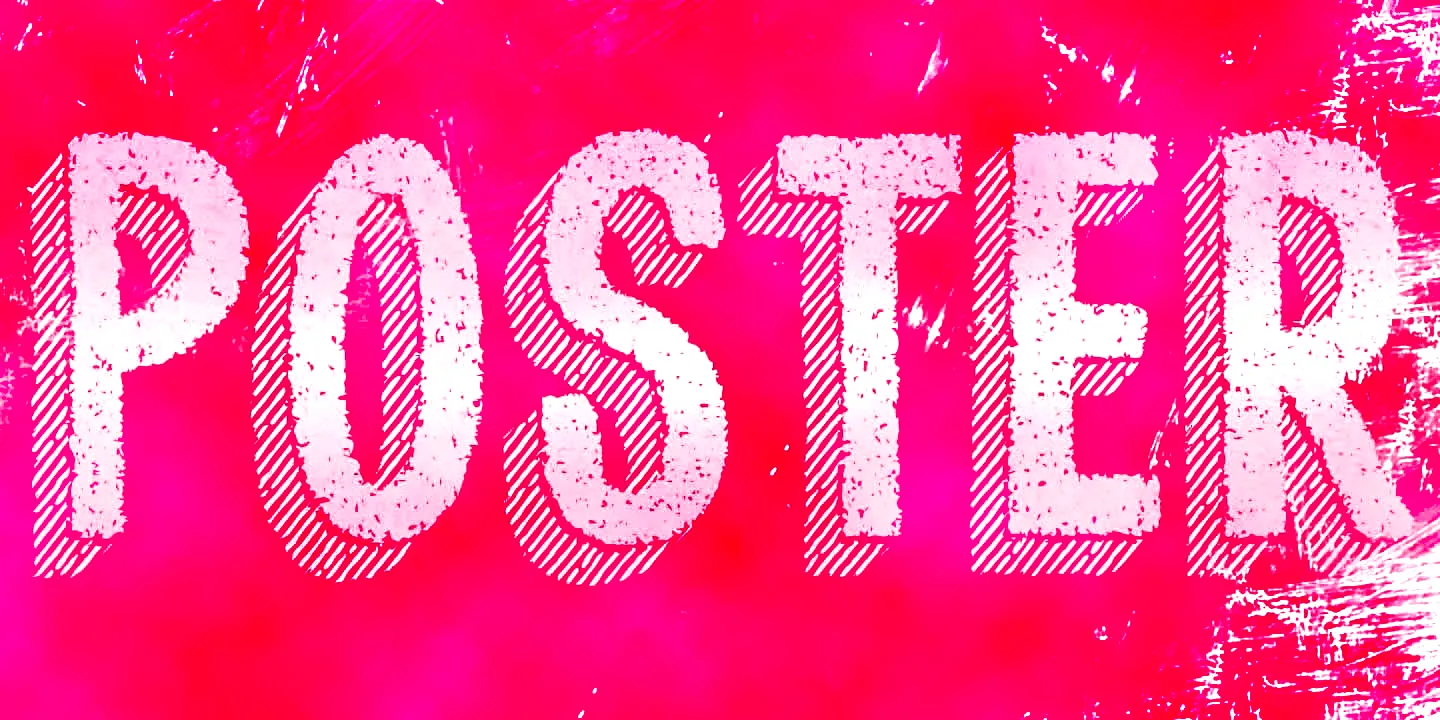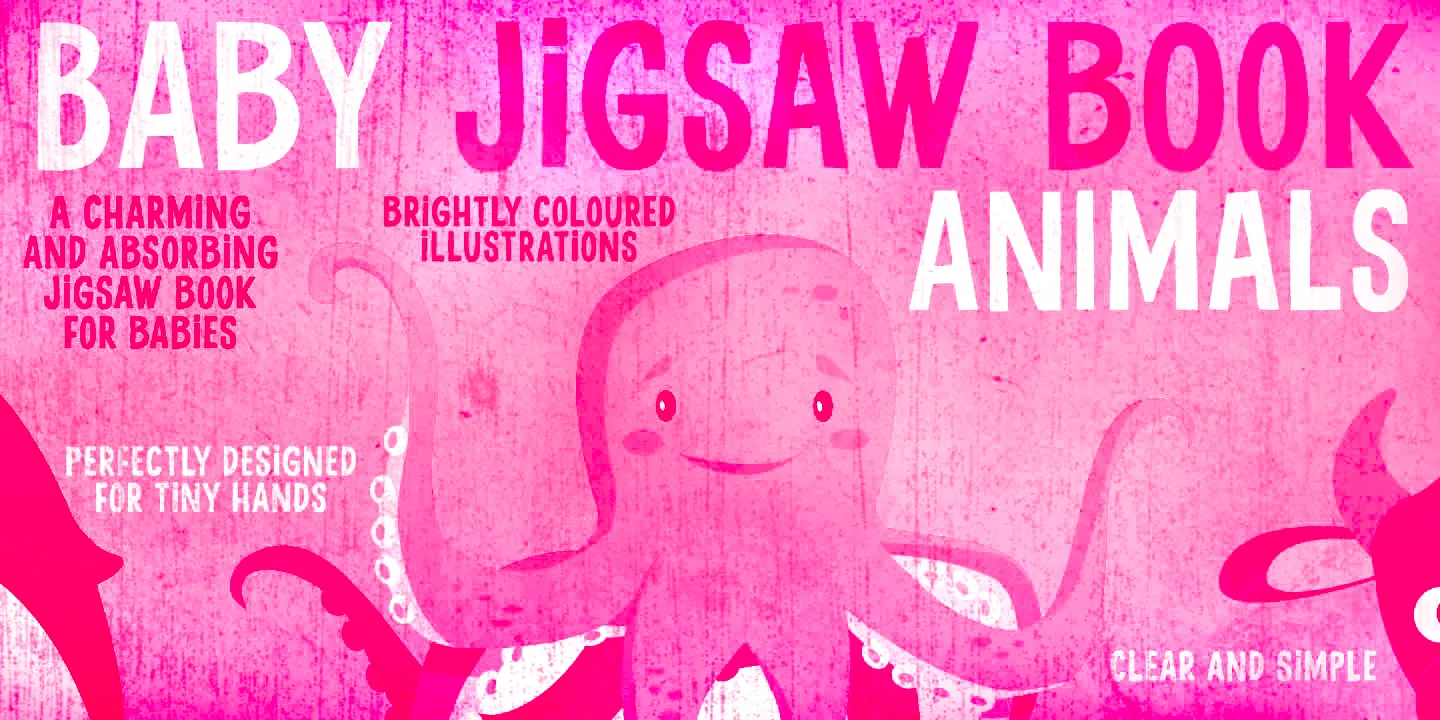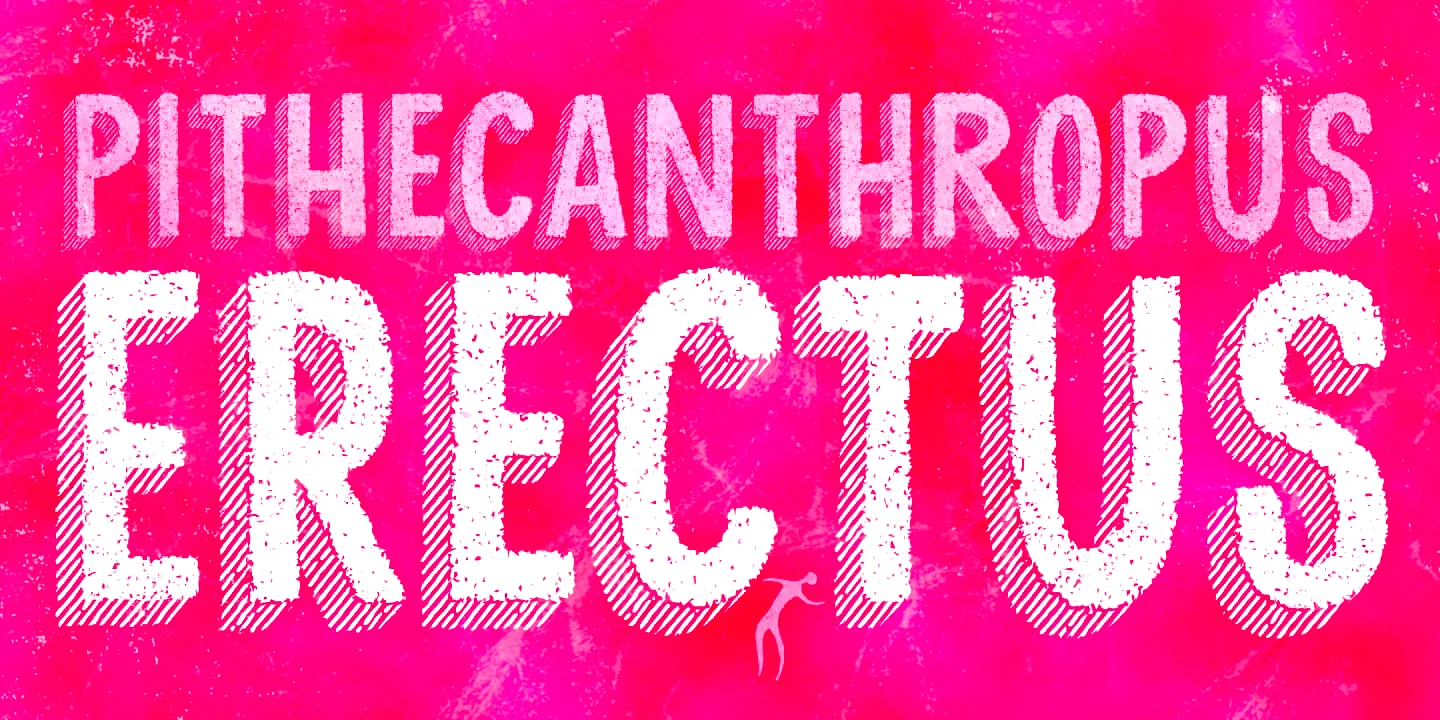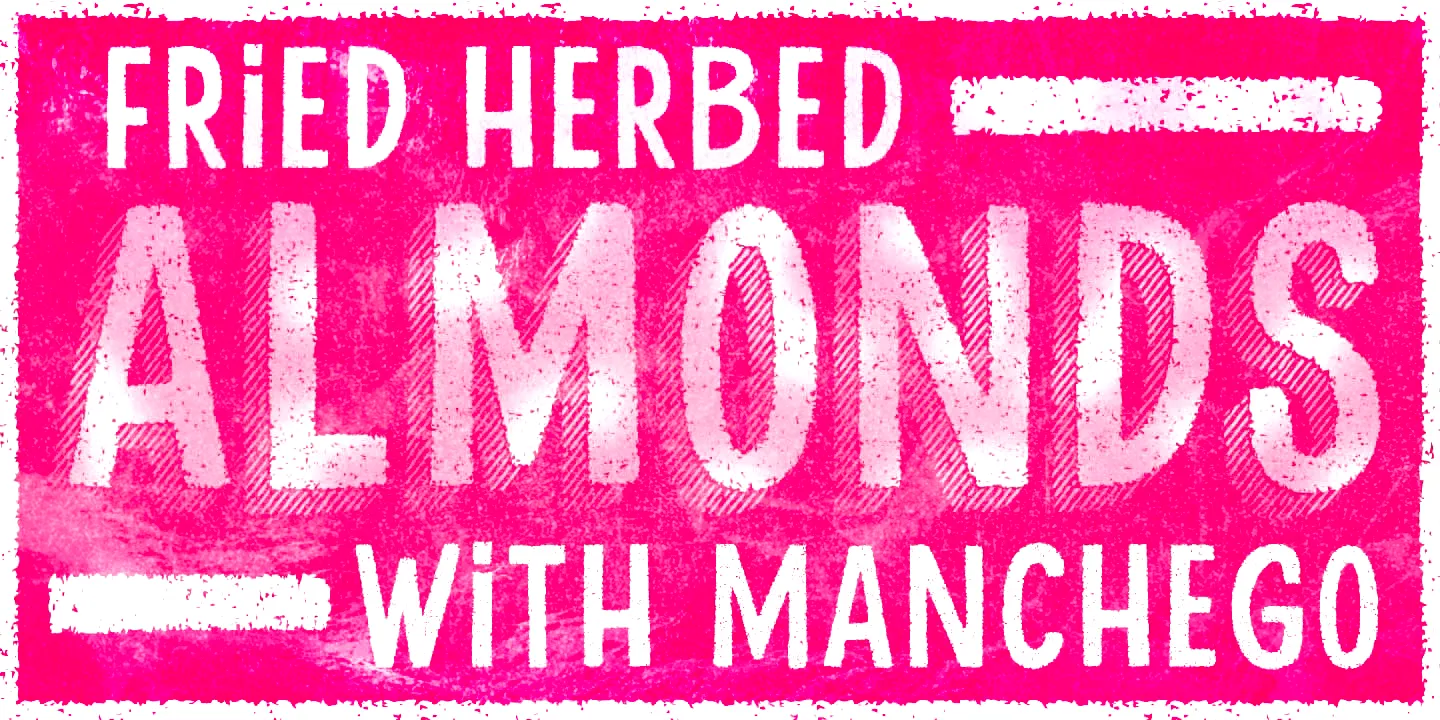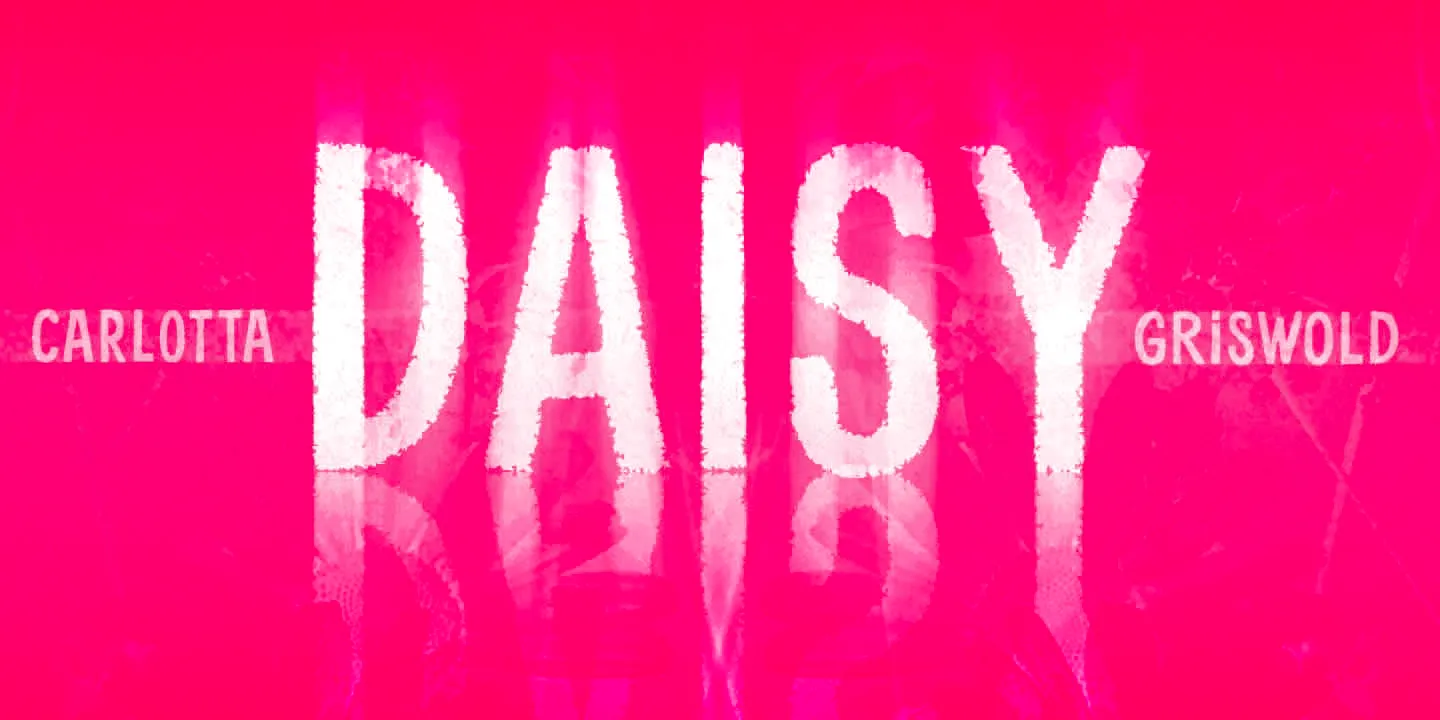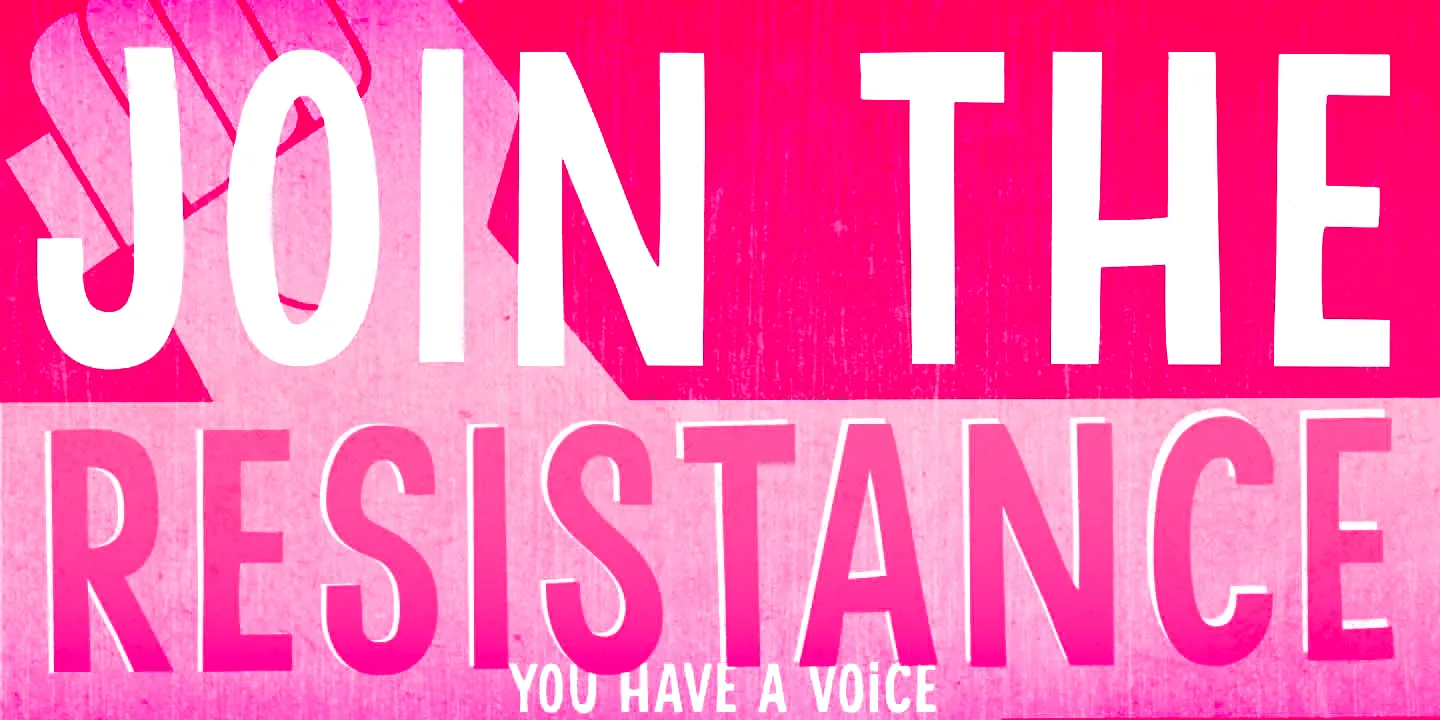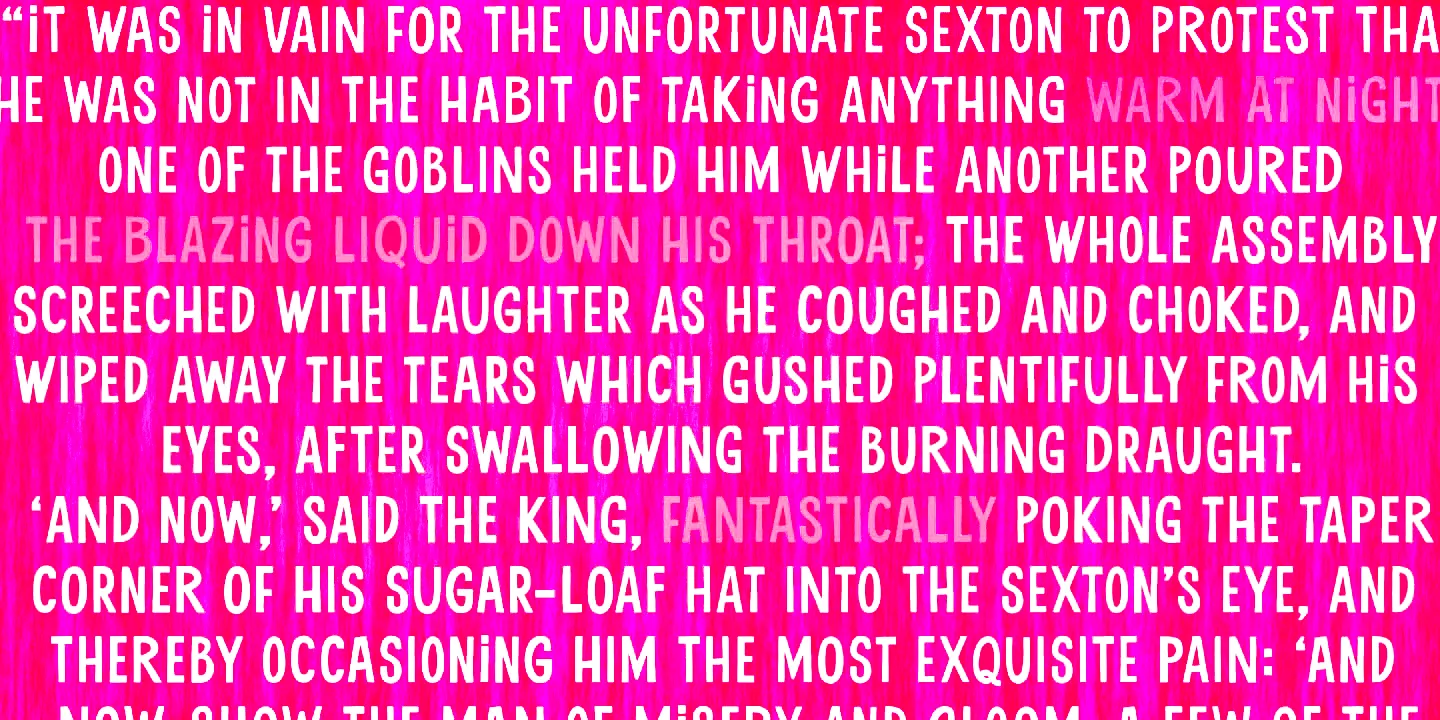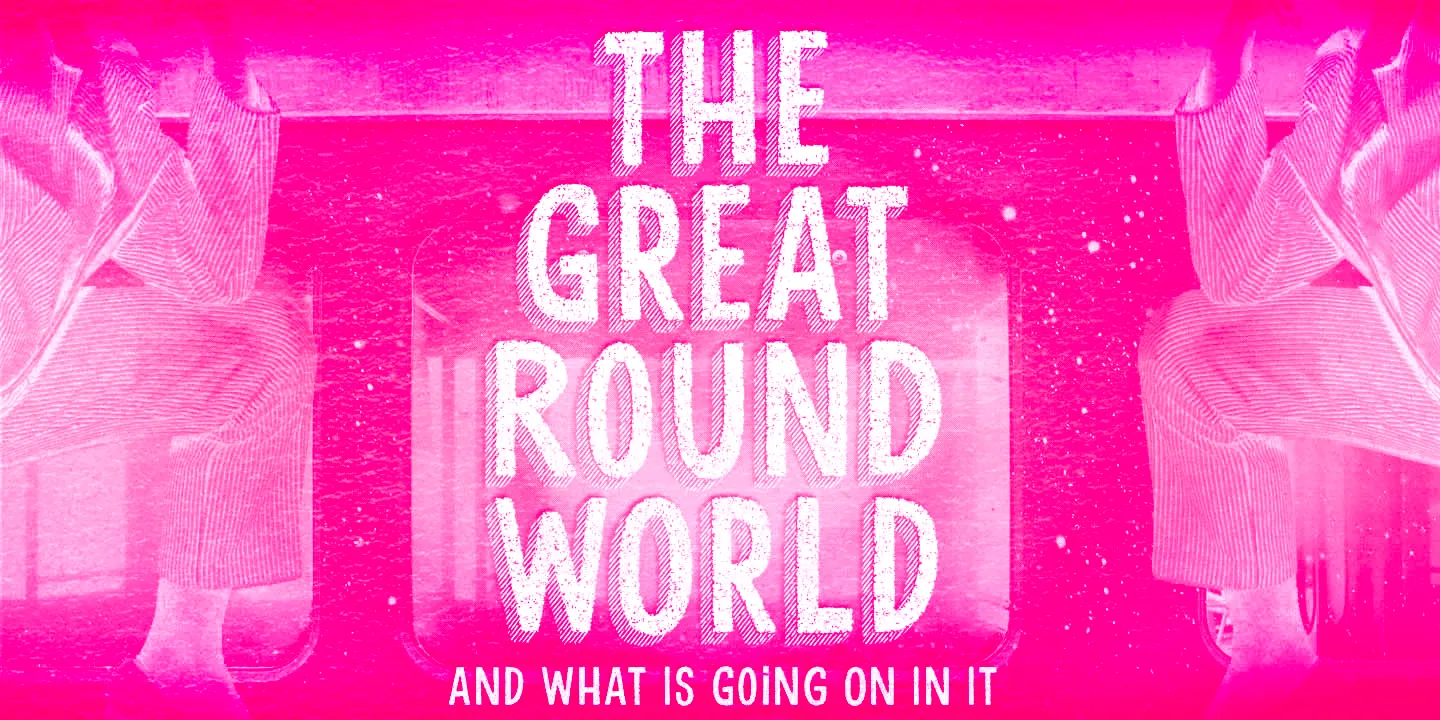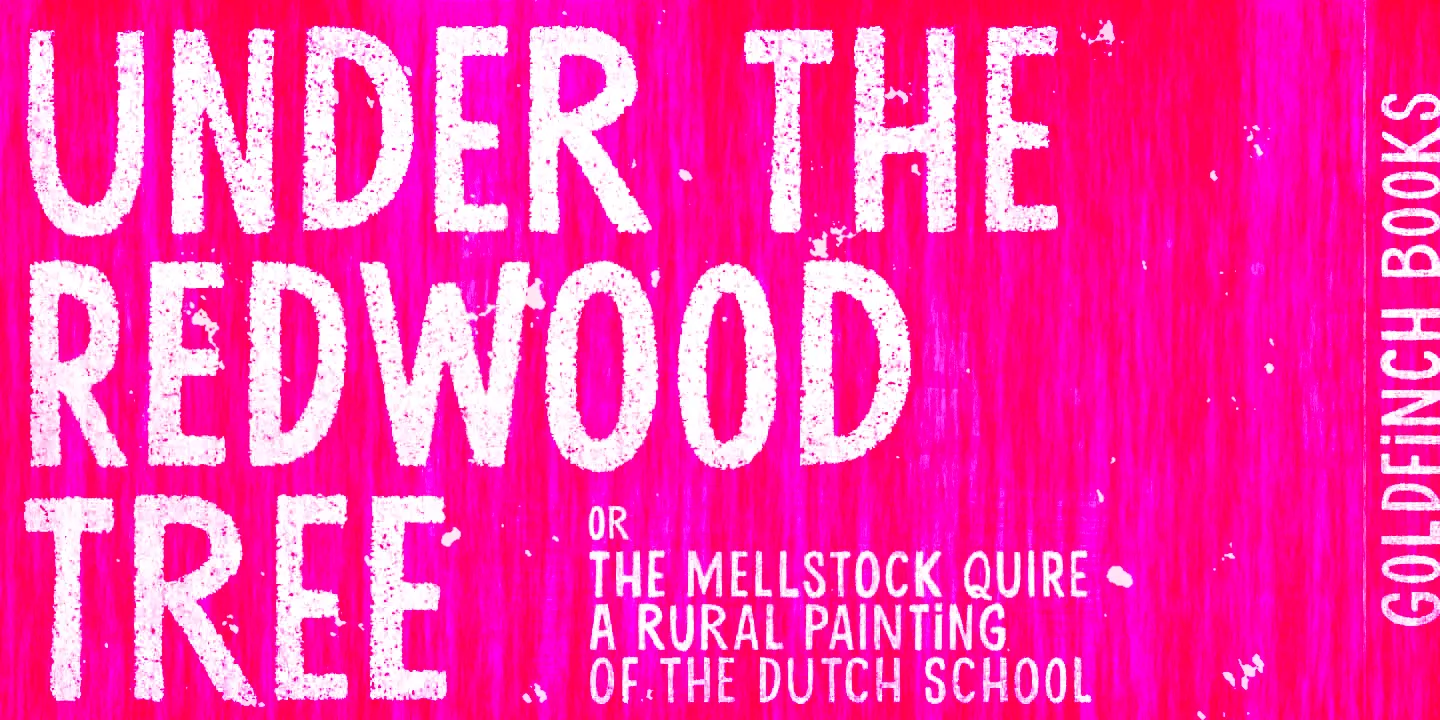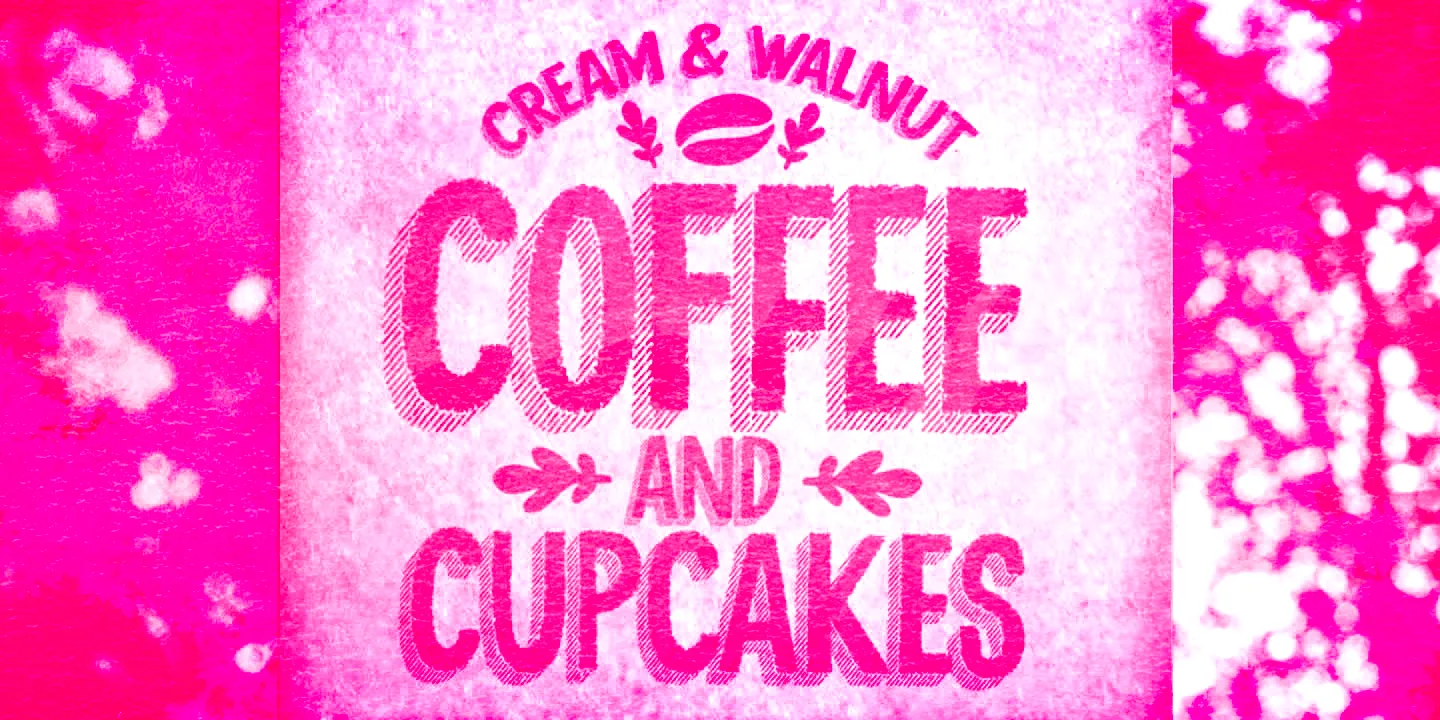
Cluster Font Family
Cluster
Cluster is a hand-drawn, shadowed, and textured display sans font family. In between solid structure and natural charm, every style has a different texture. Each letter includes two glyphs for a more organic, unpolished rhythm. This rough-cut family is suitable for designs that lean fun or serious but always stay authentic. Cluster brings grit, personality, and just the right amount of play to posters, packaging, and bold headlines.